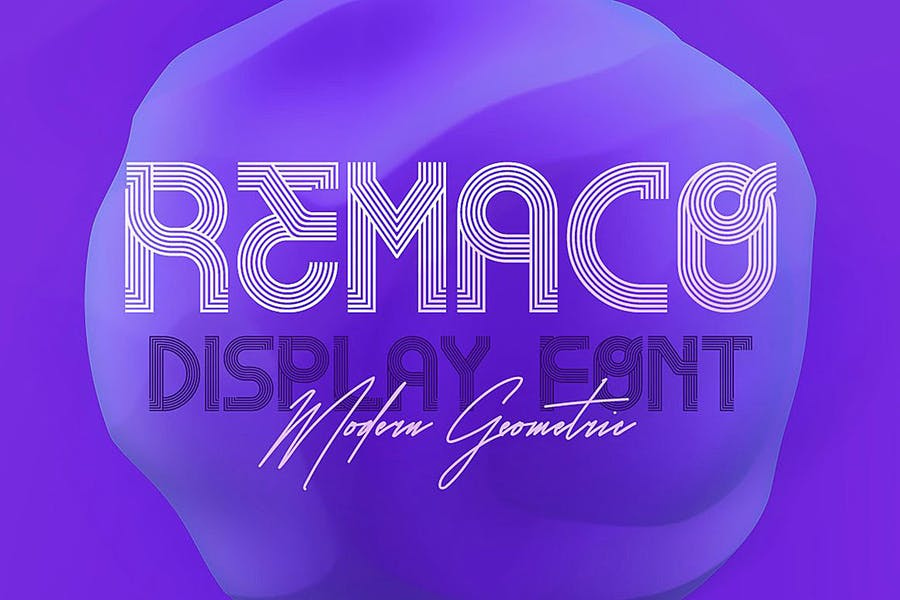
Remaco - Display Font
Remaco - Display Font is perfect for contemporary architecture firms, modern construction companies, industrial design studios, urban development projects, progressive engineering firms, sophisticated manufacturing brands, cutting-edge technology interfaces, sleek automotive designs, advanced machinery presentations, and innovative industrial lifestyle organizations.
Remaco - Display Font creates excitement because it embodies the precision engineering and industrial sophistication of modern manufacturing with its structured letterforms and machinery-inspired character design. The font's mechanical precision and industrial aesthetic instantly convey technological advancement and manufacturing excellence, making any brand appear innovatively engineered and authentically industrial. Its carefully crafted mechanical details and precision character create an immediate sense of industrial sophistication that captivates audiences seeking engineering experiences, manufacturing quality, and products that celebrate the transformative power of industrial innovation and mechanical excellence.
The Remaco - Display Font family includes multiple weights and styles: Thin, Light, Regular, Medium, Bold, Black, Italic variants for each weight, Condensed, Extended, and Industrial versions. Each variant maintains the font's signature mechanical character while offering comprehensive typographic flexibility for sophisticated industrial systems and manufacturing applications.
This precise typeface brings the authentic spirit of industrial engineering into contemporary manufacturing design with remarkable accuracy and mechanical appeal. Remaco - Display Font Free Download provides industrial brands and engineering organizations with access to premium machinery-inspired typography that embodies the essence of manufacturing precision and industrial excellence. The font's structured design and mechanical authenticity make it ideal for businesses seeking to establish meaningful connections with engineering-minded audiences who appreciate industrial innovation, manufacturing precision, and the transformative power of mechanical engineering that creates reliable industrial solutions. Whether you're developing brand identities for manufacturing companies, creating materials for engineering firms, designing interfaces for industrial platforms, or producing content for mechanical organizations, this font delivers the precise industrial atmosphere that resonates with audiences seeking genuine engineering experiences, manufacturing quality, and the mechanical precision that comes from embracing authentic industrial excellence. Its versatile design ensures outstanding performance across both technical printed materials and advanced digital industrial platforms while maintaining the character of authentic mechanical typography. The font excels in applications requiring engineering credibility and industrial appeal. Manufacturing professionals appreciate its ability to convey mechanical authenticity while remaining highly functional for various industrial communications and engineering promotional materials. The comprehensive character set includes mechanical symbols and extensive international language support, making it perfect for global industrial brands and international manufacturing organizations seeking to communicate authentic engineering values, industrial innovation, and mechanical excellence to diverse worldwide audiences who embrace industrial progress, appreciate manufacturing precision, and value the transformative power of genuine industrial engineering that creates lasting value through mechanical innovation, manufacturing excellence, and the continuous pursuit of industrial perfection that drives technological advancement and manufacturing achievement.